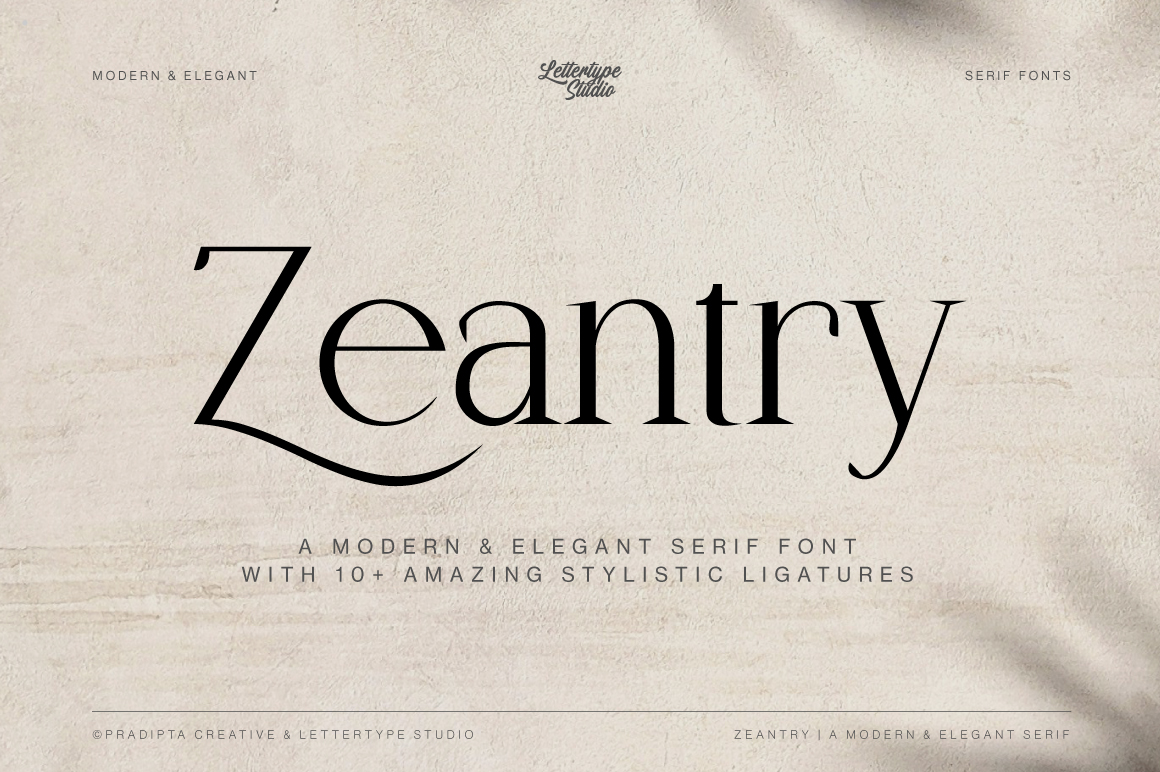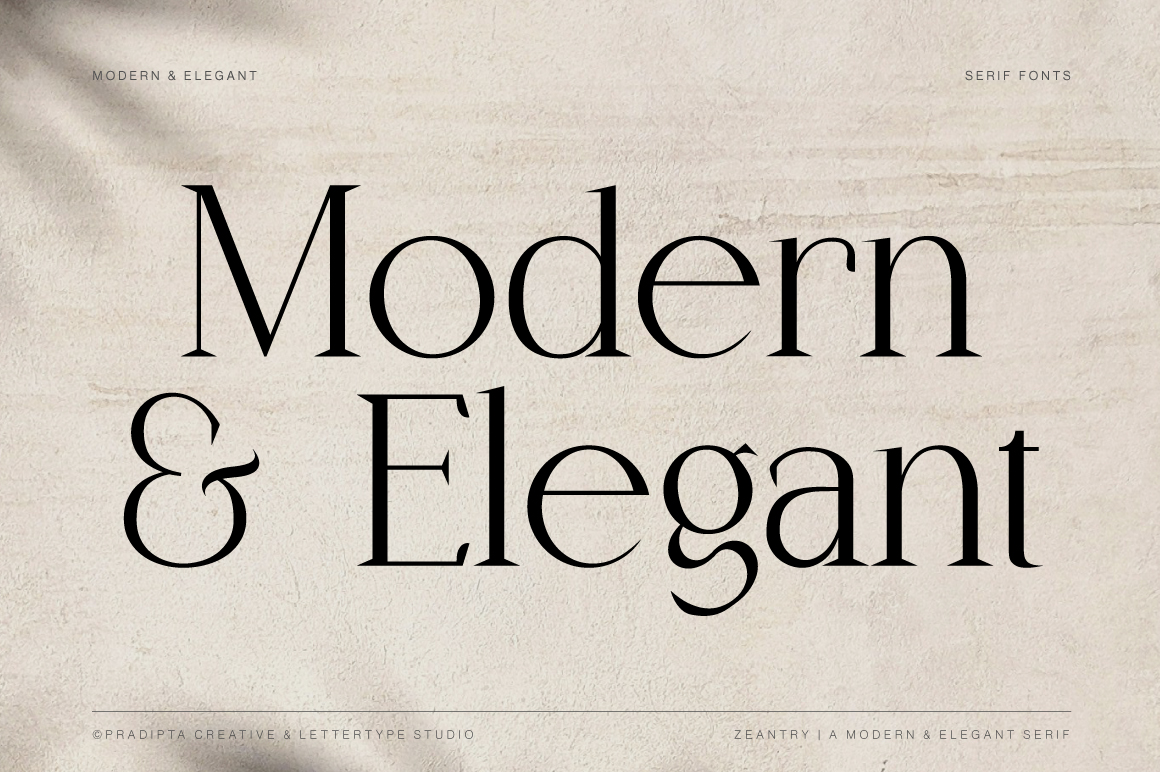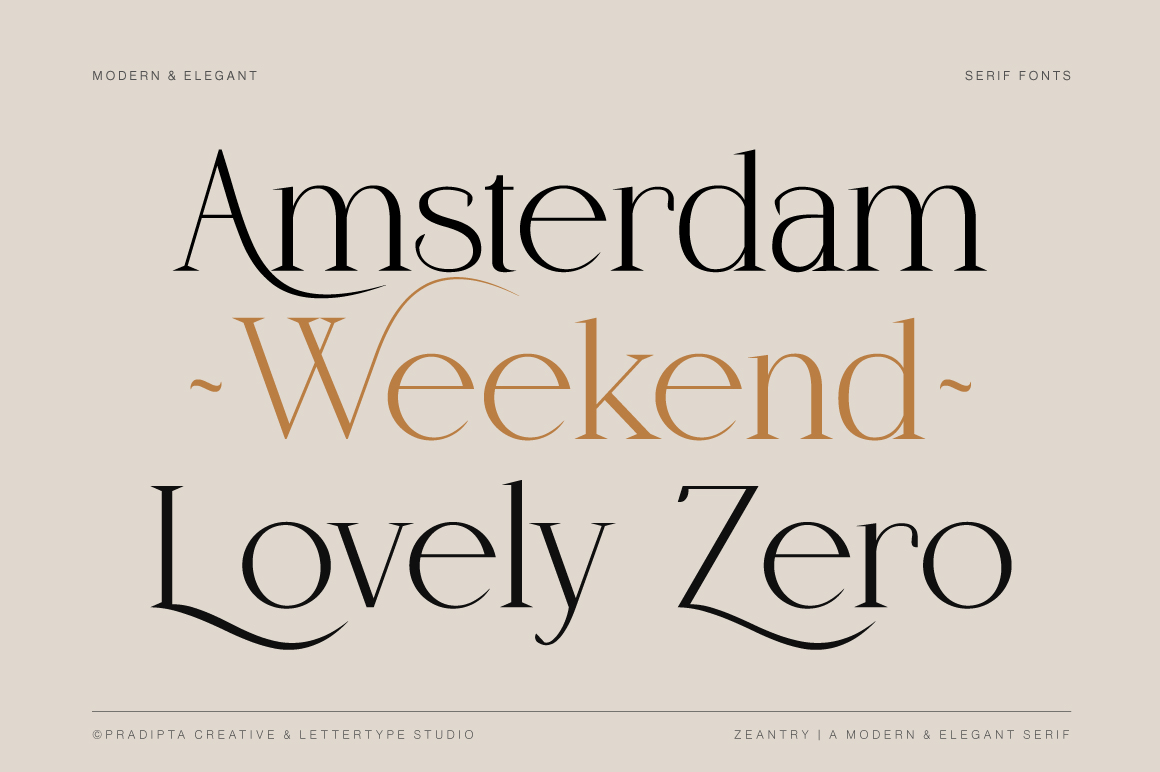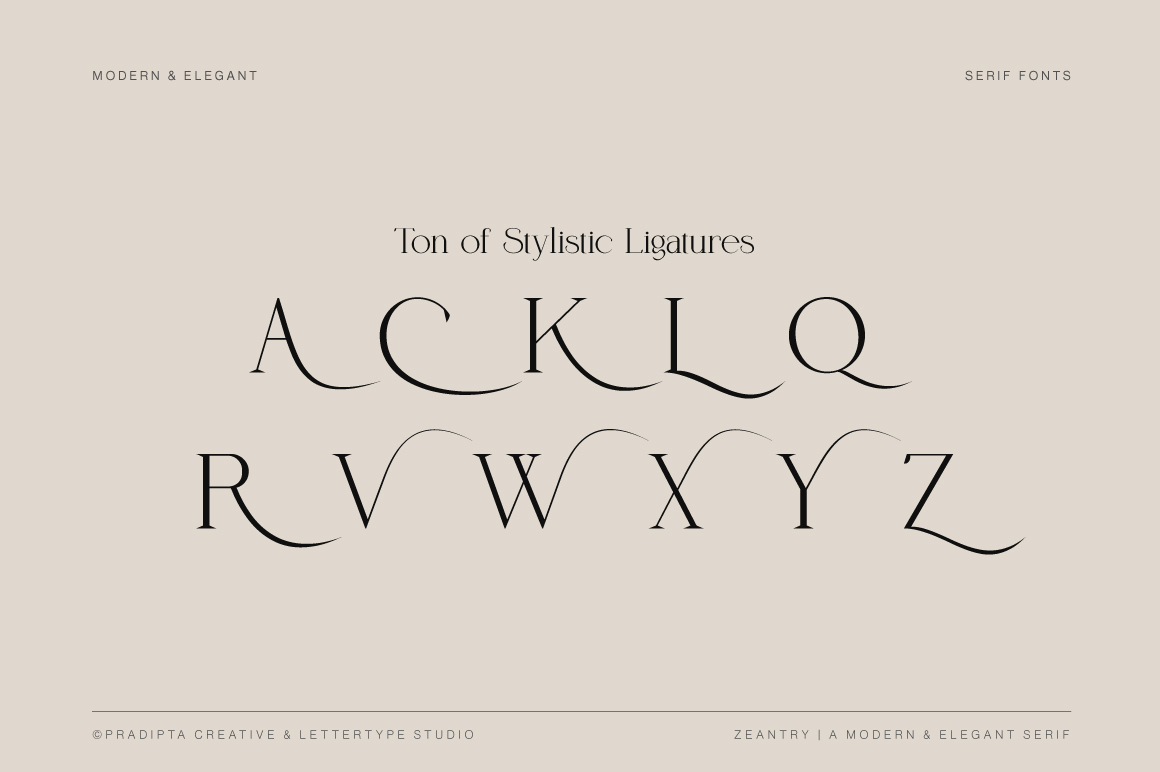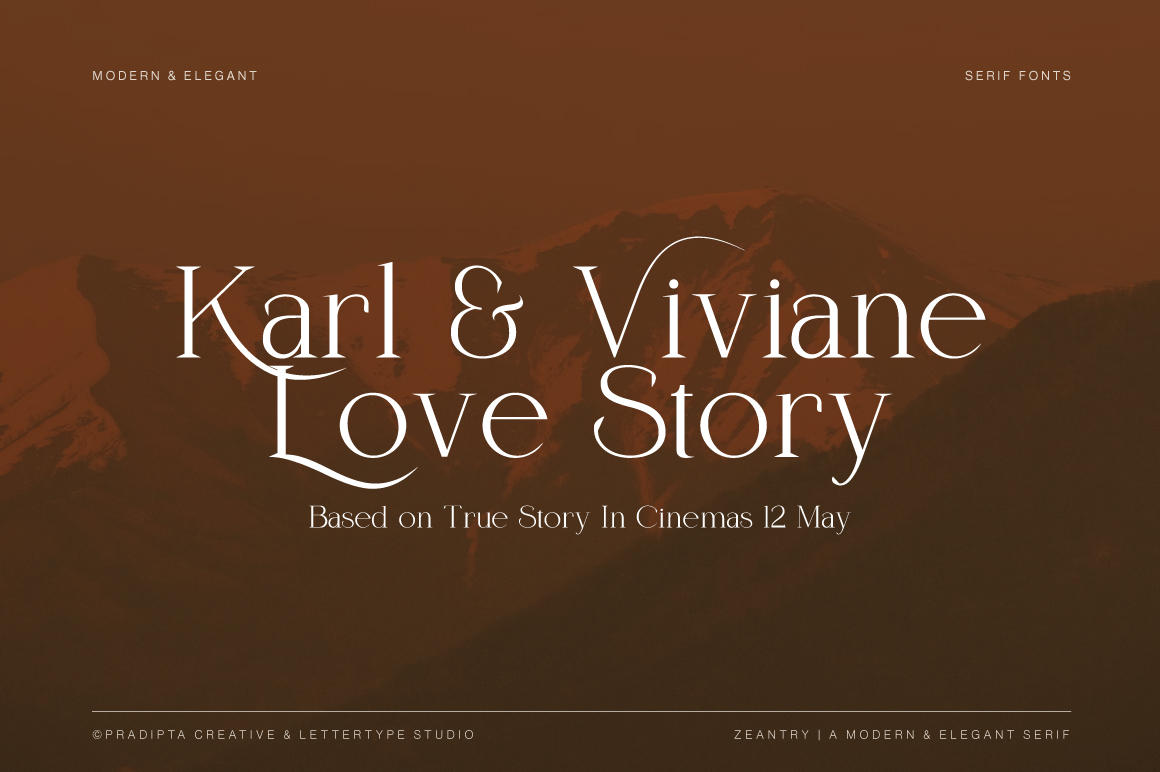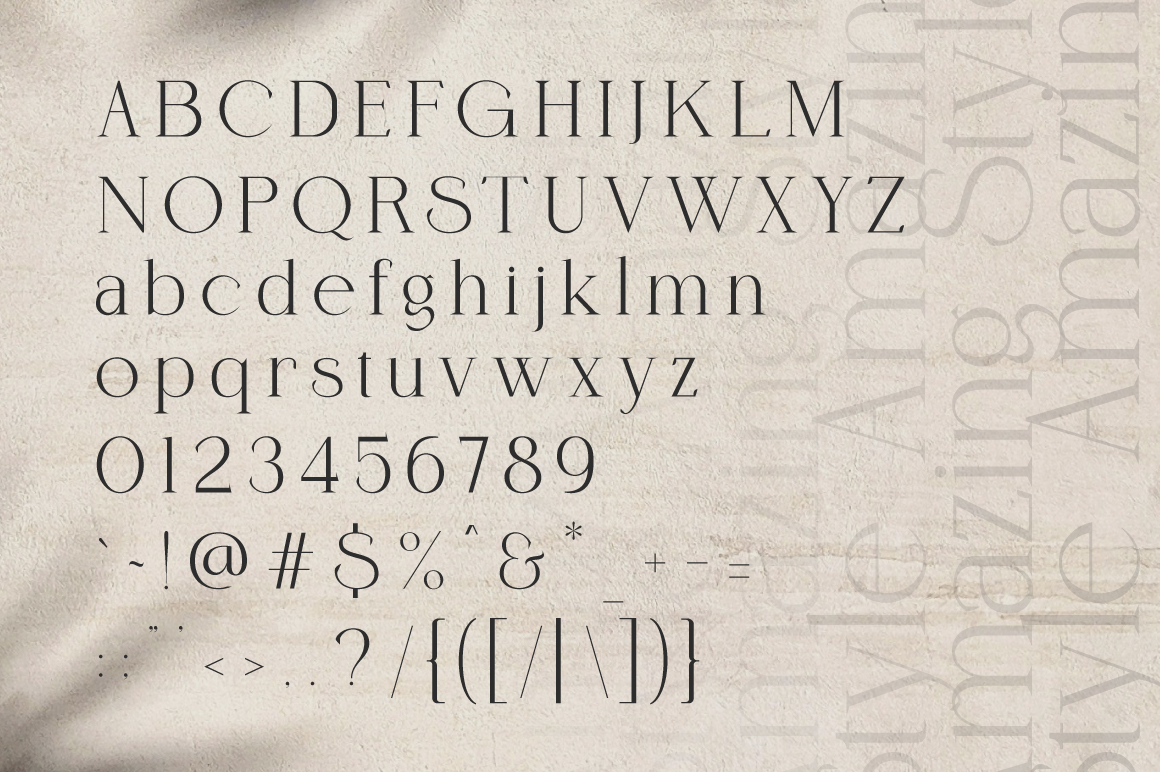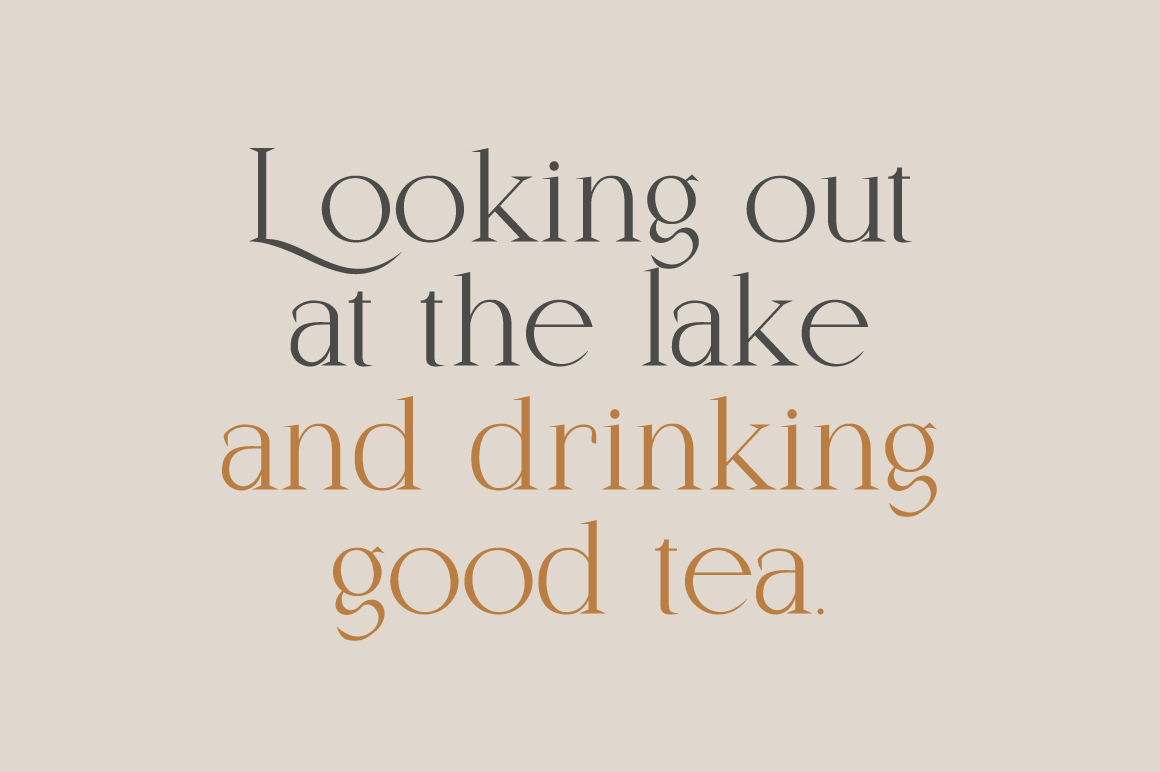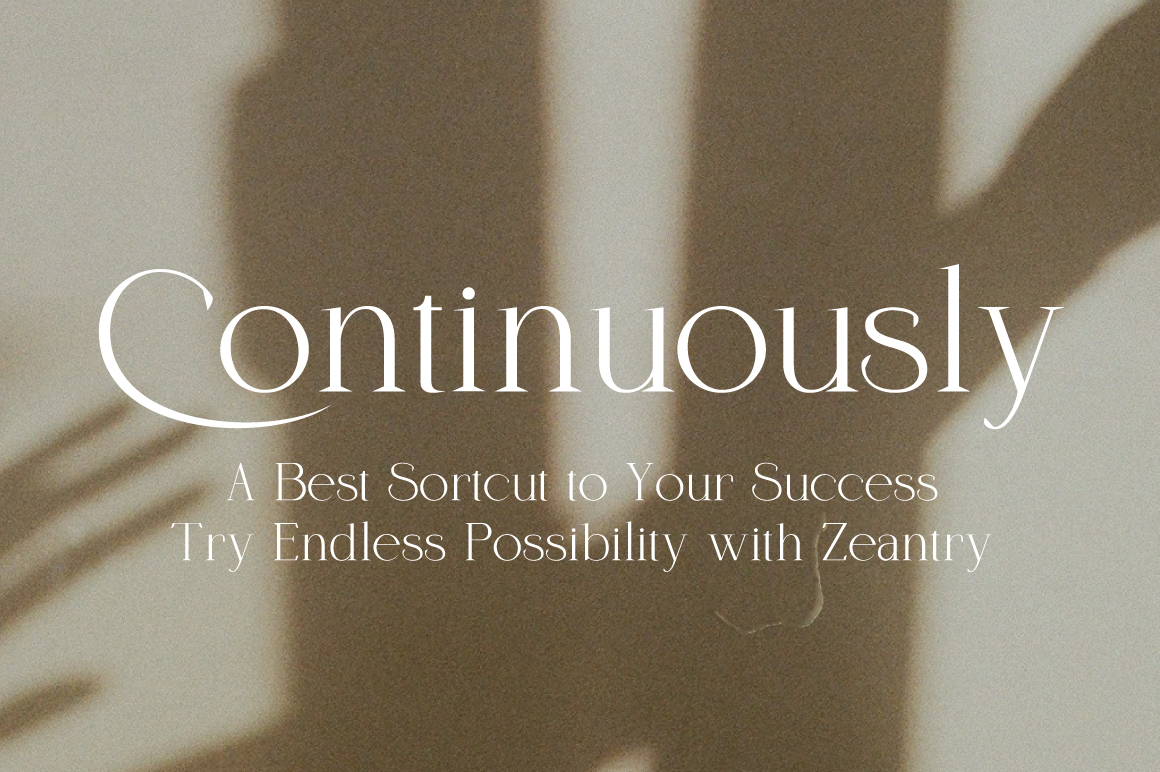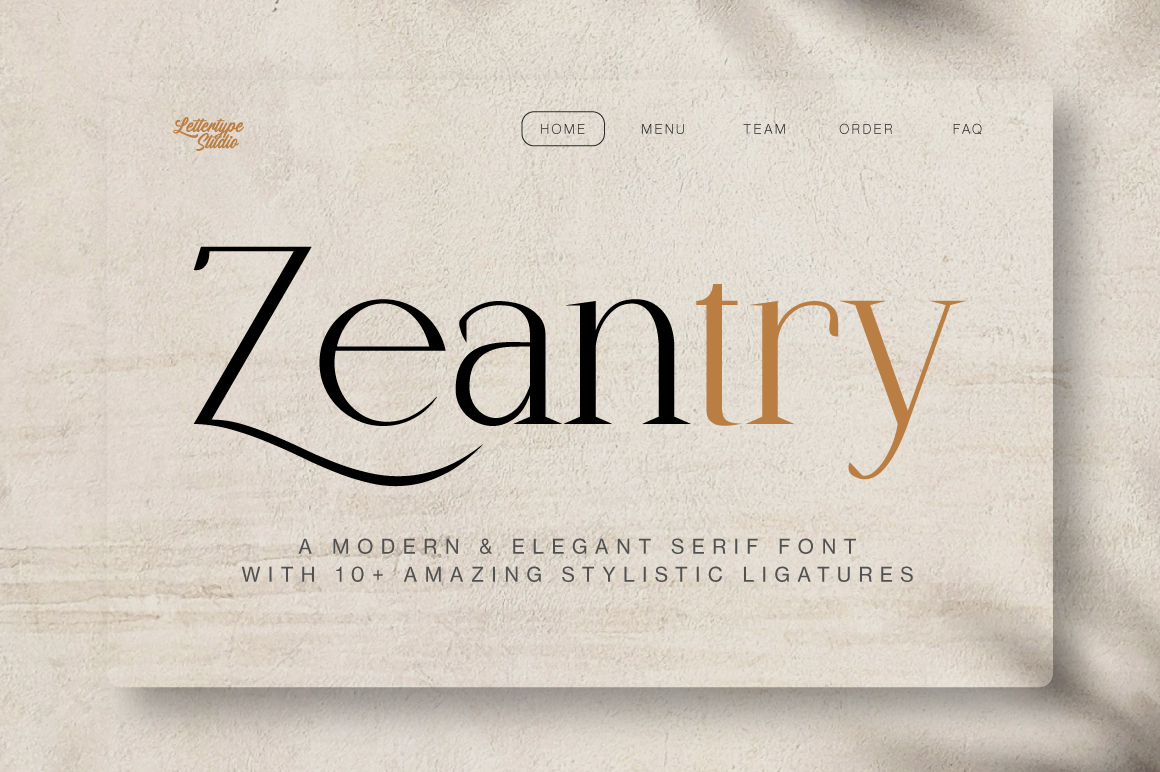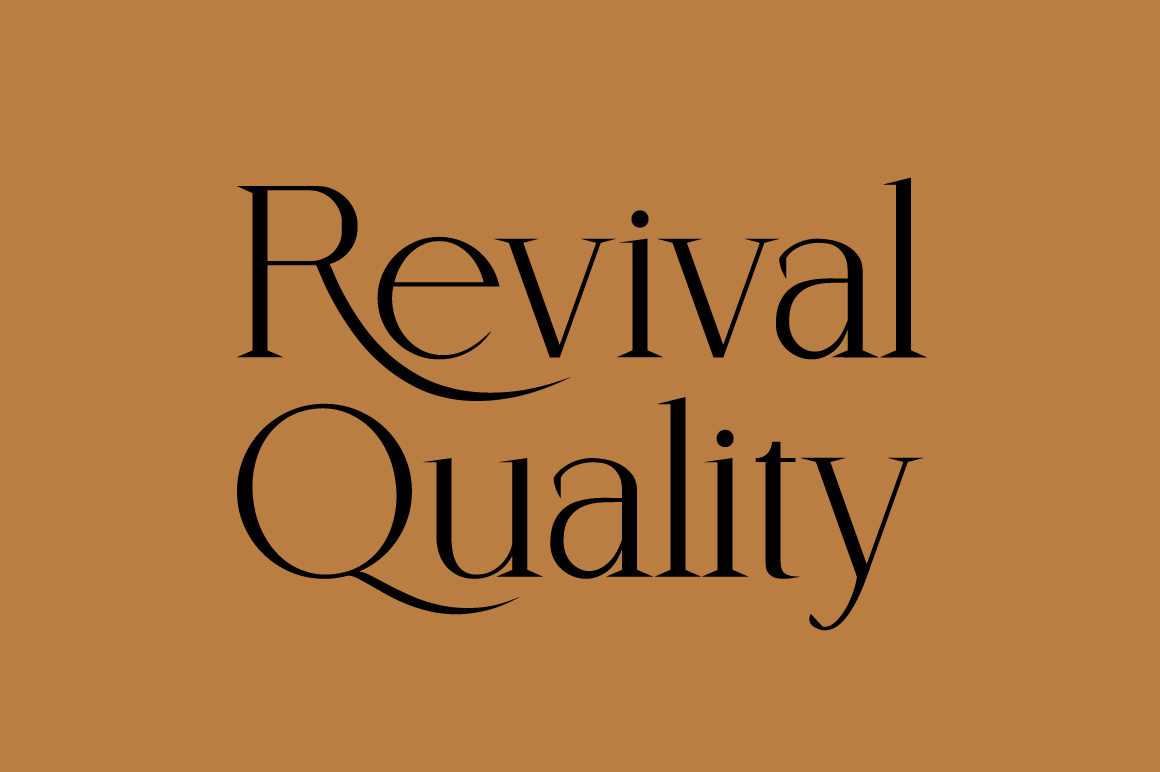
Zeantry is a modern elegant serif font family inspired by timeless 18th-century typography. With refined letterforms, balanced contrast, and subtle geometric influence, it captures sophistication and grace in every design.
Featuring 18 styles and over 10 stylistic ligatures, Zeantry delivers versatility for luxury branding, editorials, and fashion layouts. Its clean structure and elegant tone make it a go-to serif for designers seeking refined beauty and modern craftsmanship.
Zeantry Features:
- Lowercase & Uppercase
- Numerals & Punctuation
- Alternates & Ligature
- Multilingual Support
- Luxury branding, packaging, and elegant logo design
- Editorial layouts, magazines & wedding stationery
- Beauty, fashion, and jewelry campaigns
- Modern websites & high-end product identities
- Timeless typography for print & digital projects